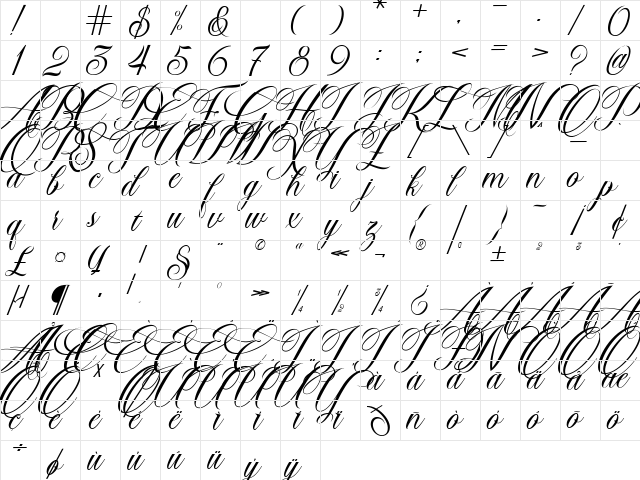
Chandiluna Regular
Regular · Canoute Creative  ·
Design Context for Chandiluna Typeface
Chandiluna flows with the natural rhythm of handwritten lettering, making it ideal for designs that call for warmth and personal expression.